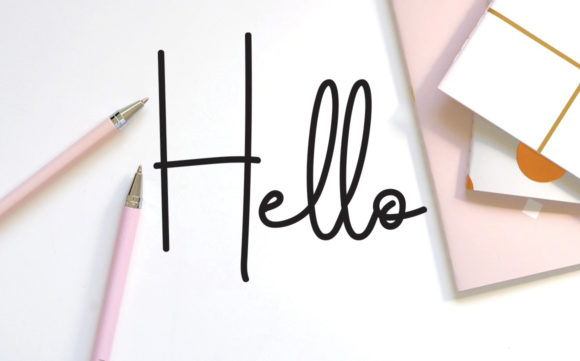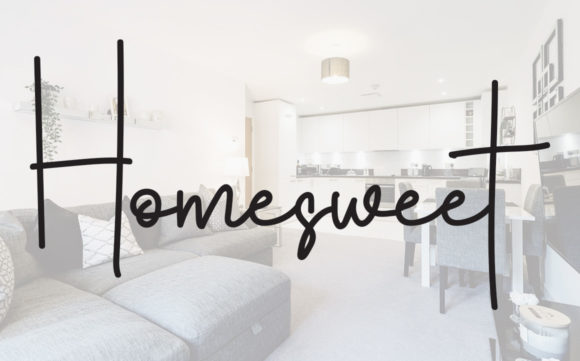
Samantha & Minimalist Font
db-ku.com - Script & Handwritten -- Samantha & minimalist is a beautiful and flowing handwritten font. Use it for wall displays, wedding invitations, social media posts, logos, advertisements, product packaging, product designs, labels, photography, watermarks, invitations, stationery, and any project that requires impressive typography.